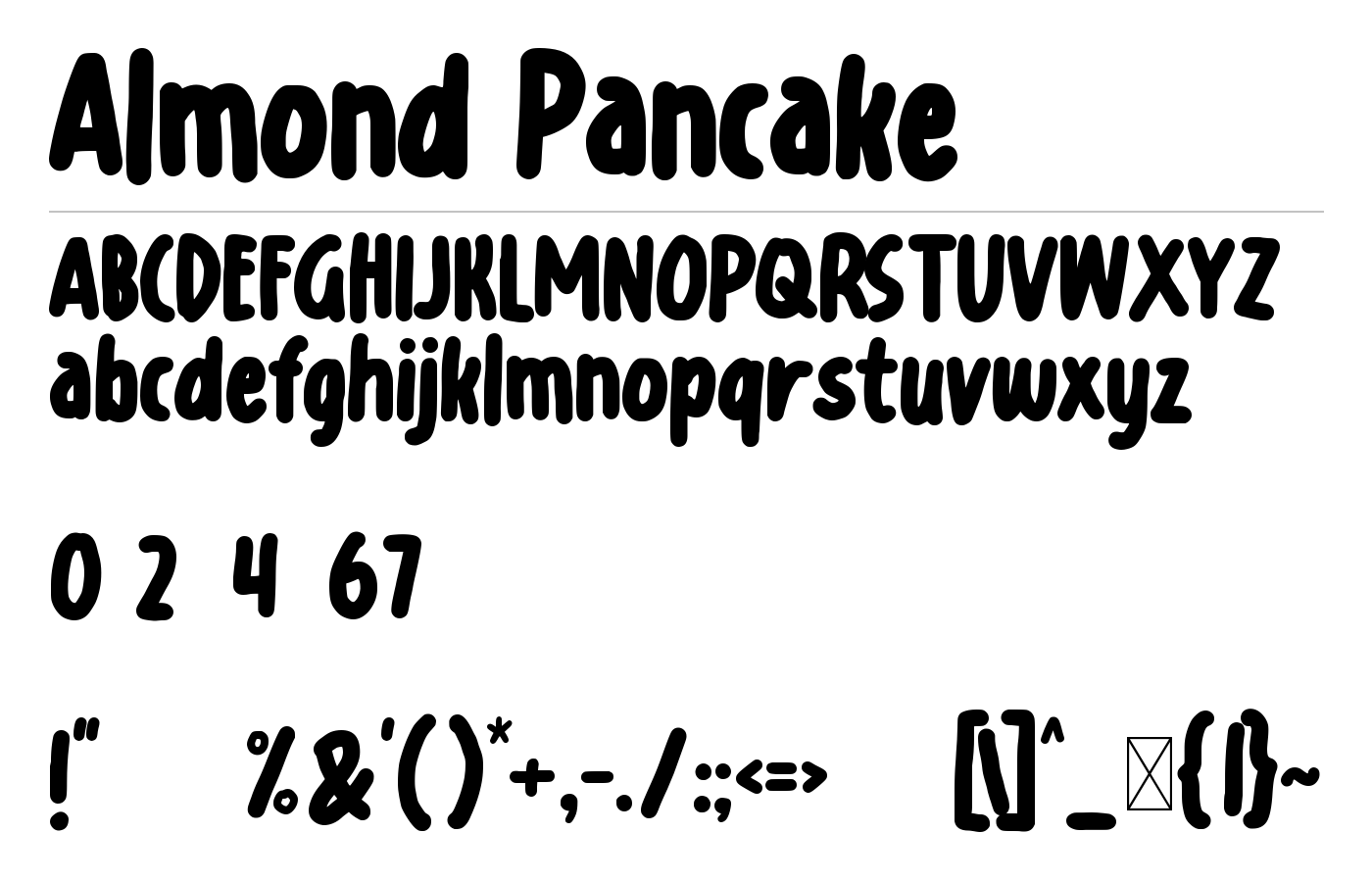
Almond Pancake is a playful, bold sans serif font with a friendly, hand-drawn feel. Its rounded, chunky letterforms and high x-height create an approachable and lively look, making it ideal for fun, casual designs like children's books, informal branding, and eye-catching headlines. This font brings warmth and personality, perfect for projects that want to convey creativity and cheerfulness.
Almond Pancake Font
About Almond Pancake Font
| Font family | Almond Pancake Font |